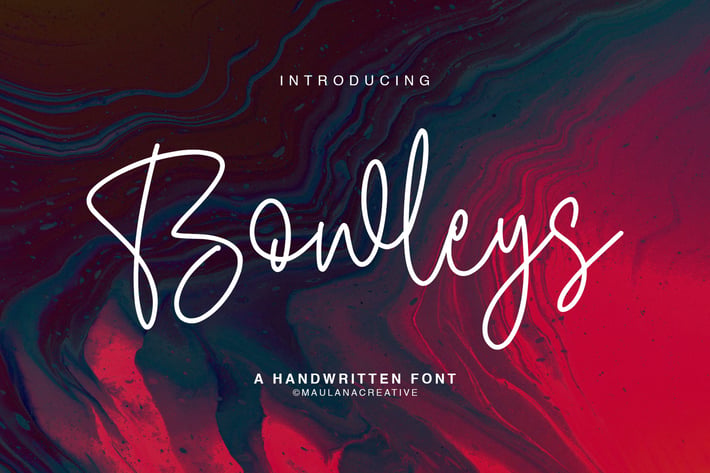
Bowleys Typeface
Give your designs an authentic handcrafted feel. "Bowleys Typeface" is perfectly suited to signature, stationery, logo, typography quotes, magazine or book cover, website header, clothing, branding, packaging design and more.